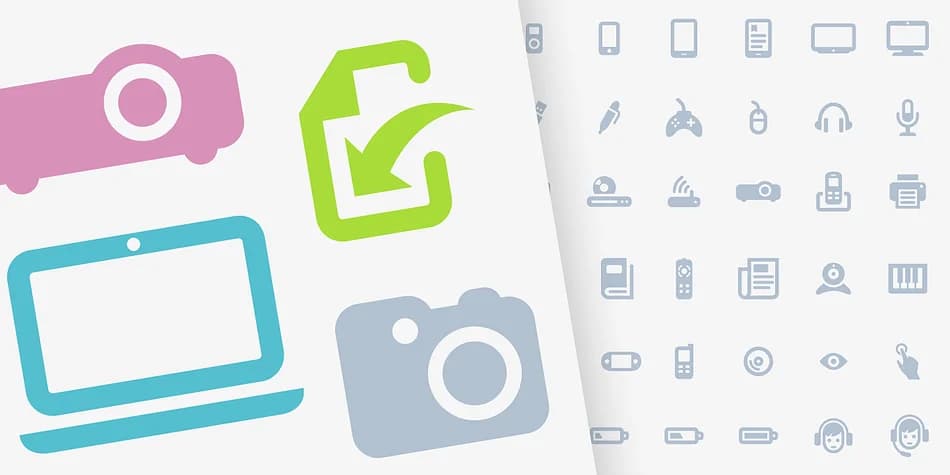
About Vivala Media Icons Font
You're building out an app dashboard and need a consistent set of device controls that feel modern and cohesive. Vivala Media Icons, created by Johannes Hoffmann, gives you exactly that: 106 carefully designed symbols covering everything from volume adjustments to brightness toggles and many other functions.
This dingbat collection shines for app UI design, music player interfaces, and smart home control panels where consistency really matters. Each icon maintains visual clarity in podcast cover artwork, presentation slide graphics, dashboard mockups, and digital product prototypes alike. The symbols span standard media functions and device controls, so you won't end up hunting through mismatched icon sources looking for that one specific button you need. Built with uniform style across all glyphs, these icons prove reliable for cohesive interface design across any medium or platform.
When you're pulling these into your next project, the consistent weight and sizing across every symbol means they'll scale beautifully without awkward spacing or alignment issues getting in the way. The unified approach to strokes and curves gives your UI a polished, professional feel from the start without requiring manual tweaks. Grab Vivala Media Icons on Creative Fabrica and take the guesswork out of building your next media-heavy interface.
Vivala Media Icons Font is a versatile dingbats font that works for both headings and body text. Pair it with a contrasting sans-serif or serif font to add visual interest and a clear distinction between titles and body copy.